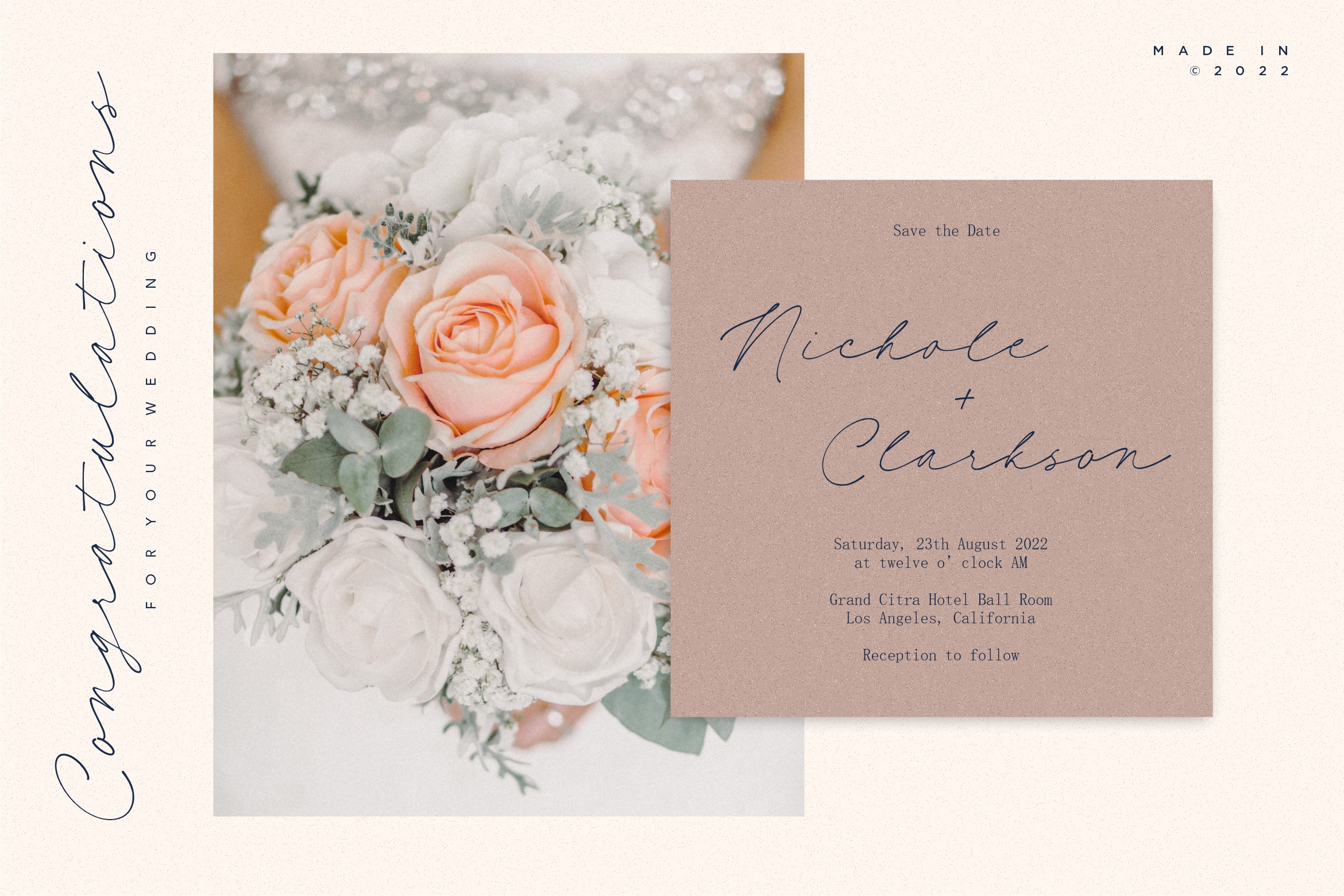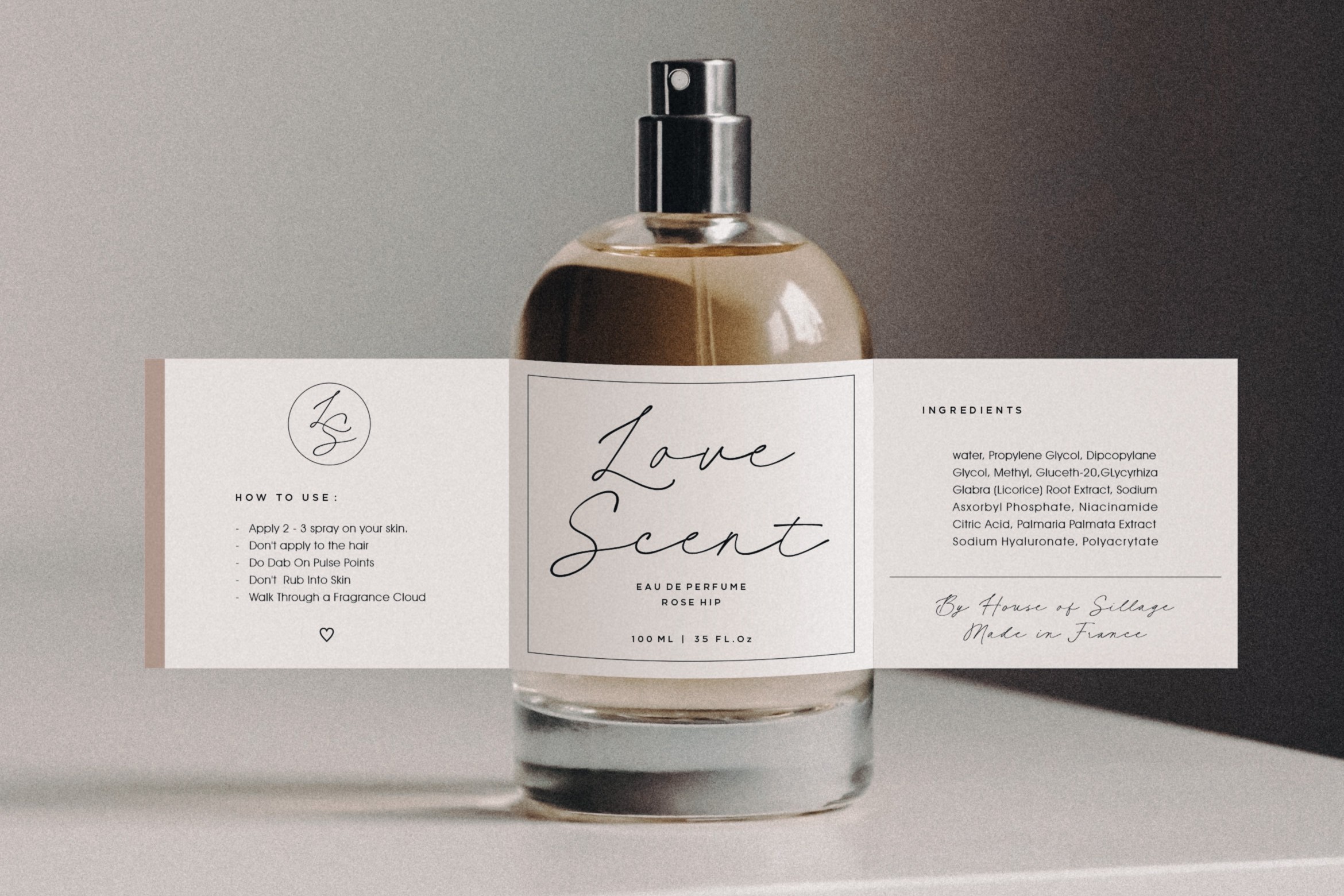
Hand Of Linda Font
Hand Of Linda Handwritten Font
It’s an elegant signature font. Font with natural flow and feminine style. Each letter is deliberately imperfect to make it look more natural and charming. Hand Of Linda comes with multilingual support, long range ligature, and ending swash from a-z. Hand Of Linda is perfect for many design needs such as merch, T-shirts, titles, book covers, social media posts, websites, events, and many more.